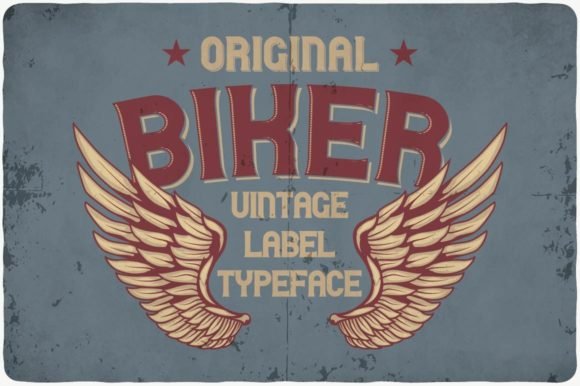
The Ultimate Design Companion: Biker Font
You know that moment when a design idea strikes, and you just can’t wait to bring it to life? It’s like a spark of creativity has ignited, and nothing can stop you from turning your vision into a reality. For designers, this feeling is what drives us to push the boundaries of what’s possible.
That’s where Biker Font comes in – a bold and classy display font designed to capture attention and make a lasting impression. This versatile font is the perfect partner for creating stunning visual content that resonates with your audience. Whether you’re working on a branding project, a marketing campaign, or a personal design endeavor, Biker Font is the trusted companion you need to elevate your work and make it truly unforgettable.
Biker Font Key Features
- Unique Characteristics: Biker Font features a bold, distressed design with a rough, worn texture, giving it a rugged and edgy feel.
- Language Support: The font supports a wide range of languages, including Latin, Cyrillic, and Greek, making it suitable for international design projects.
- Kerning and Ligatures: Biker Font includes advanced kerning and ligature features, ensuring smooth text flow and optimal readability.
Biker Font Review
When I first saw the Biker Font, I was immediately drawn to its bold and edgy aesthetic ✨. The font is perfect for any design that needs a tough, rugged look. The designer has done an excellent job of capturing the essence of a motorcycle culture, and the font’s unique character set is sure to make it stand out.
One of the standout features of the Biker Font is its versatility ✨. It can be used for a wide range of applications, from logos and signage to menus and merchandise. The font’s bold lines and distressed texture give it a worn, vintage feel that’s perfect for designs that need to evoke a sense of nostalgia.
- ⚠️ Limited language support: The Biker Font currently only supports a limited number of languages, which may be a drawback for designers who need to work with clients from diverse linguistic backgrounds.
- ⚠️ Limited character set: While the font has a unique character set, it may not be comprehensive enough for designers who need to use special characters or symbols.
Overall, the Biker Font is a solid choice for designers who need a bold, edgy font with a unique aesthetic ✨. While it has some limitations, the font’s versatility and bold design make it a great addition to any design toolkit.
Use the Biker font for bold, edgy designs that require a tough, rugged look.
– Motorcycle or automotive logos
– Action sports or extreme sports branding
– Edgy, urban-themed designs
– Graffiti or street art-inspired graphics
Alternatives to Biker Font
1. Arial Black
Arial Black is a sans-serif font that is often used as a bold or condensed version of the Arial font. It is commonly used in titles, headings, and body text where a strong, modern look is desired. Compared to Biker Font, Arial Black is more polished and less aggressive, making it a suitable choice for corporate or business designs.
2. Impact
Impact is a sans-serif font known for its bold, condensed shape. It is often used in titles, headings, and other display text where a dramatic or attention-grabbing effect is desired. Compared to Biker Font, Impact is more extreme and attention-seeking, making it a suitable choice for designs that require a strong, edgy look.
3. Rockwell
Rockwell is a slab-serif font that is often used in titles, headings, and body text where a strong, classic look is desired. It is commonly used in designs that require a sense of elegance and sophistication. Compared to Biker Font, Rockwell is more refined and less aggressive, making it a suitable choice for designs that require a more subtle, classic look.